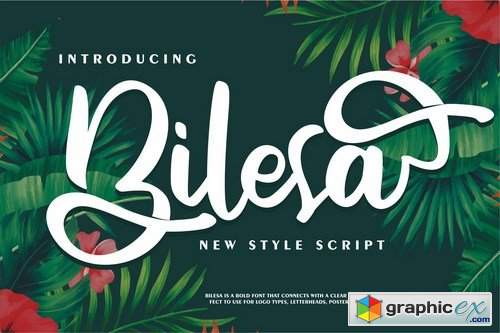
Bilesa New Style Script
Bilesa | New Style Script with a calligraphy style, So beautiful on invitation like greeting cards, branding materials, business cards, quotes, posters, and more!